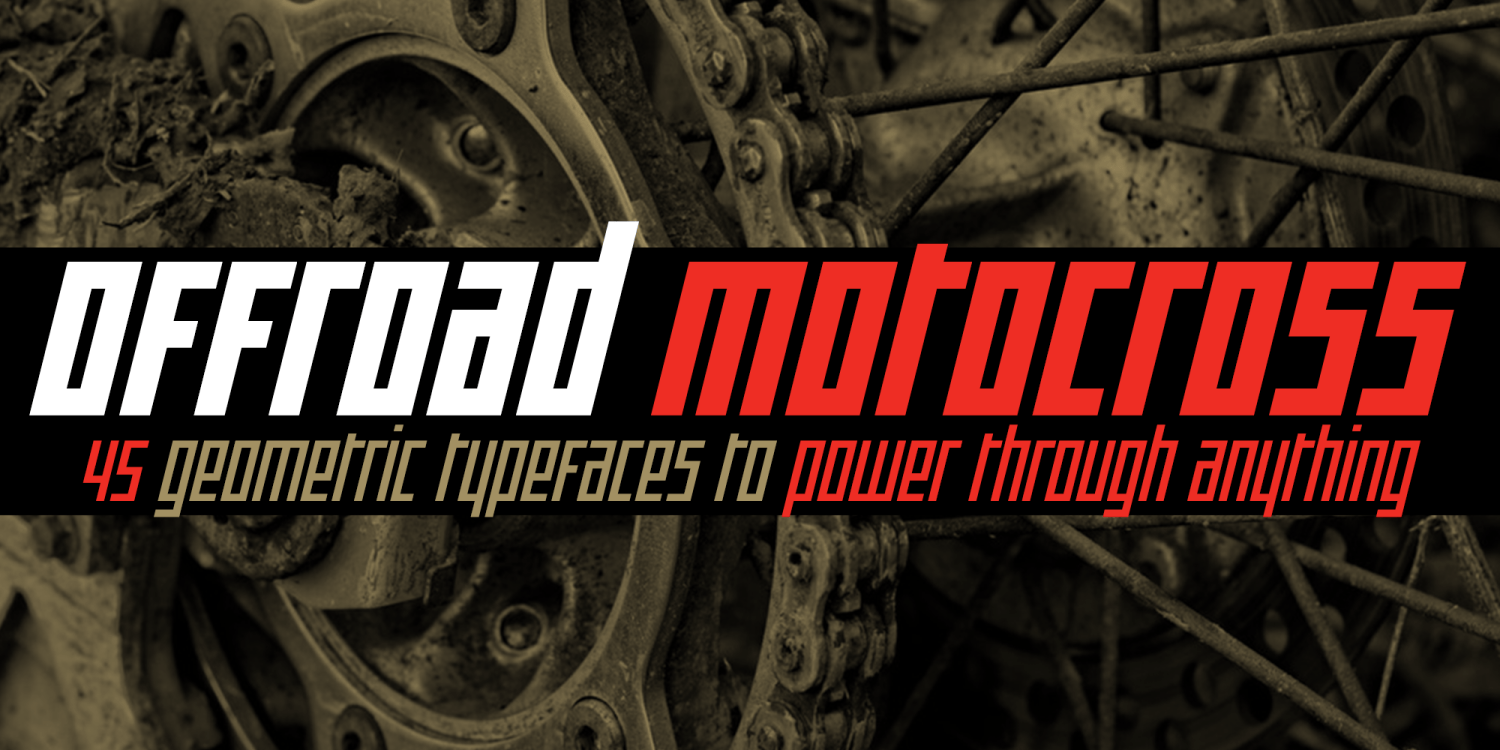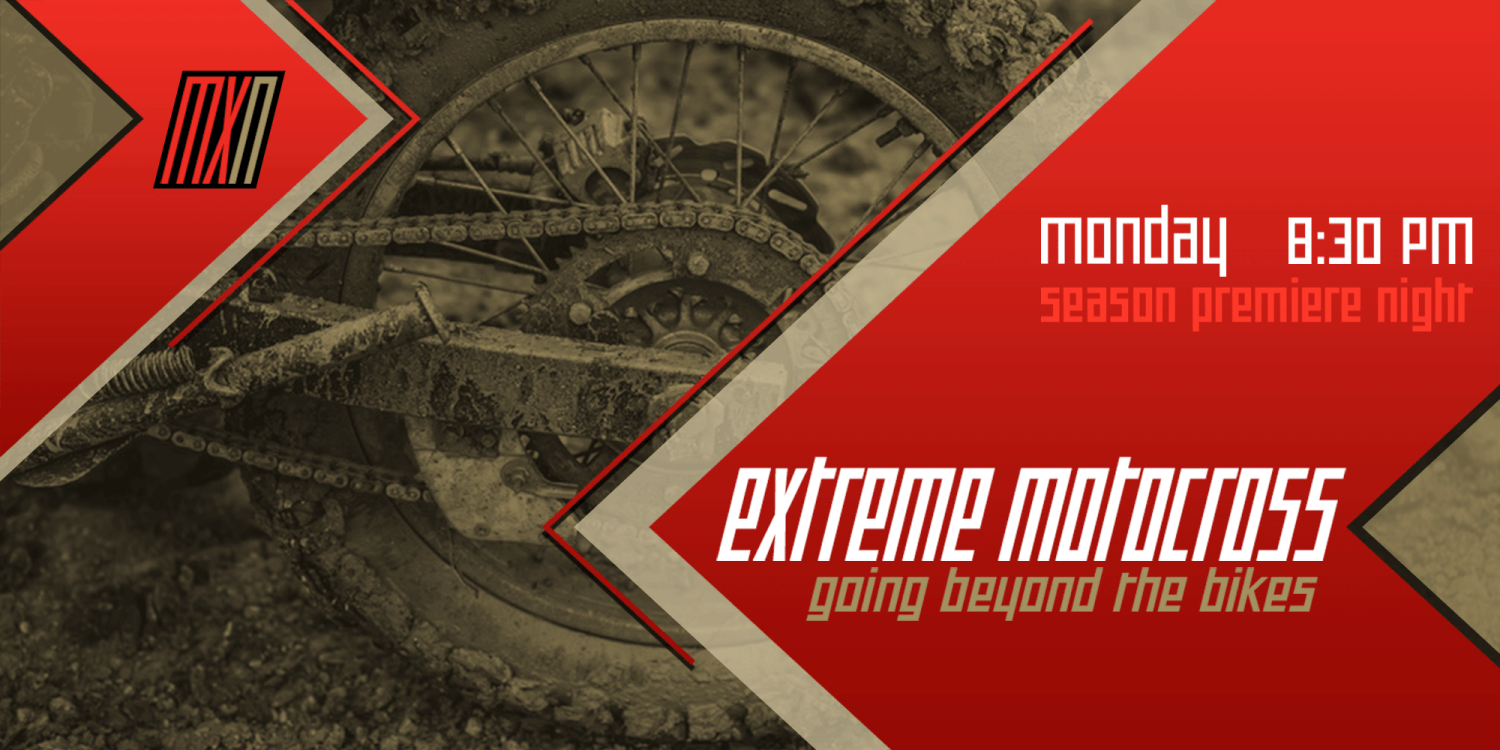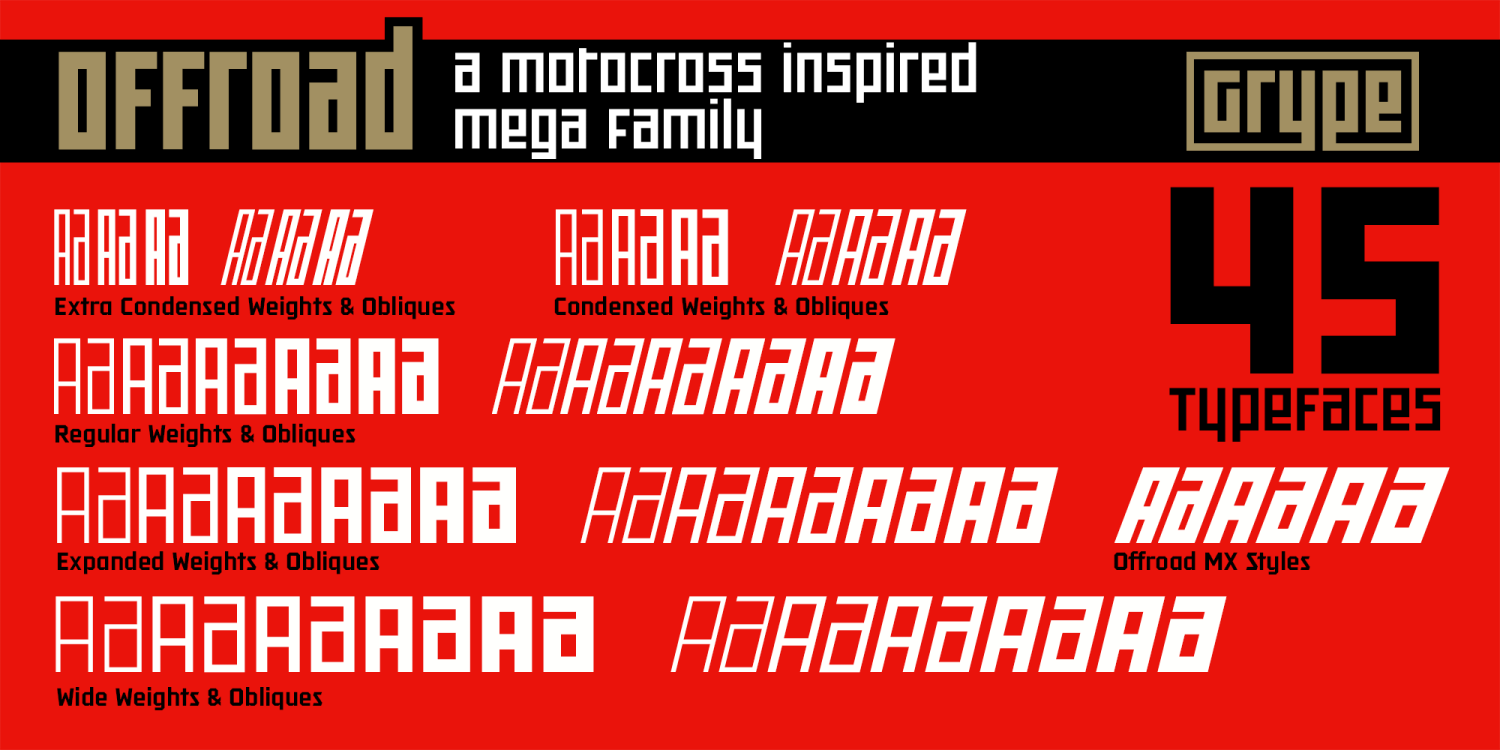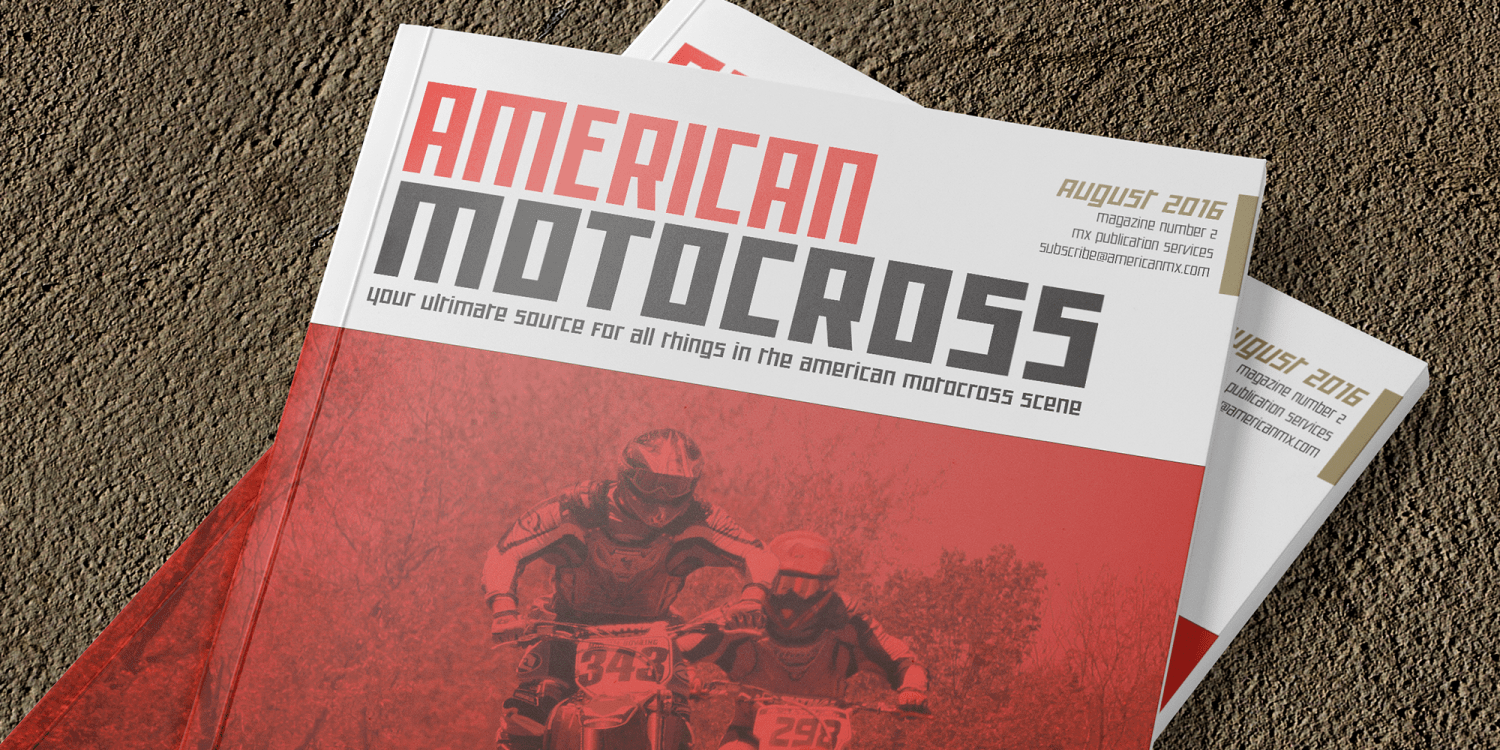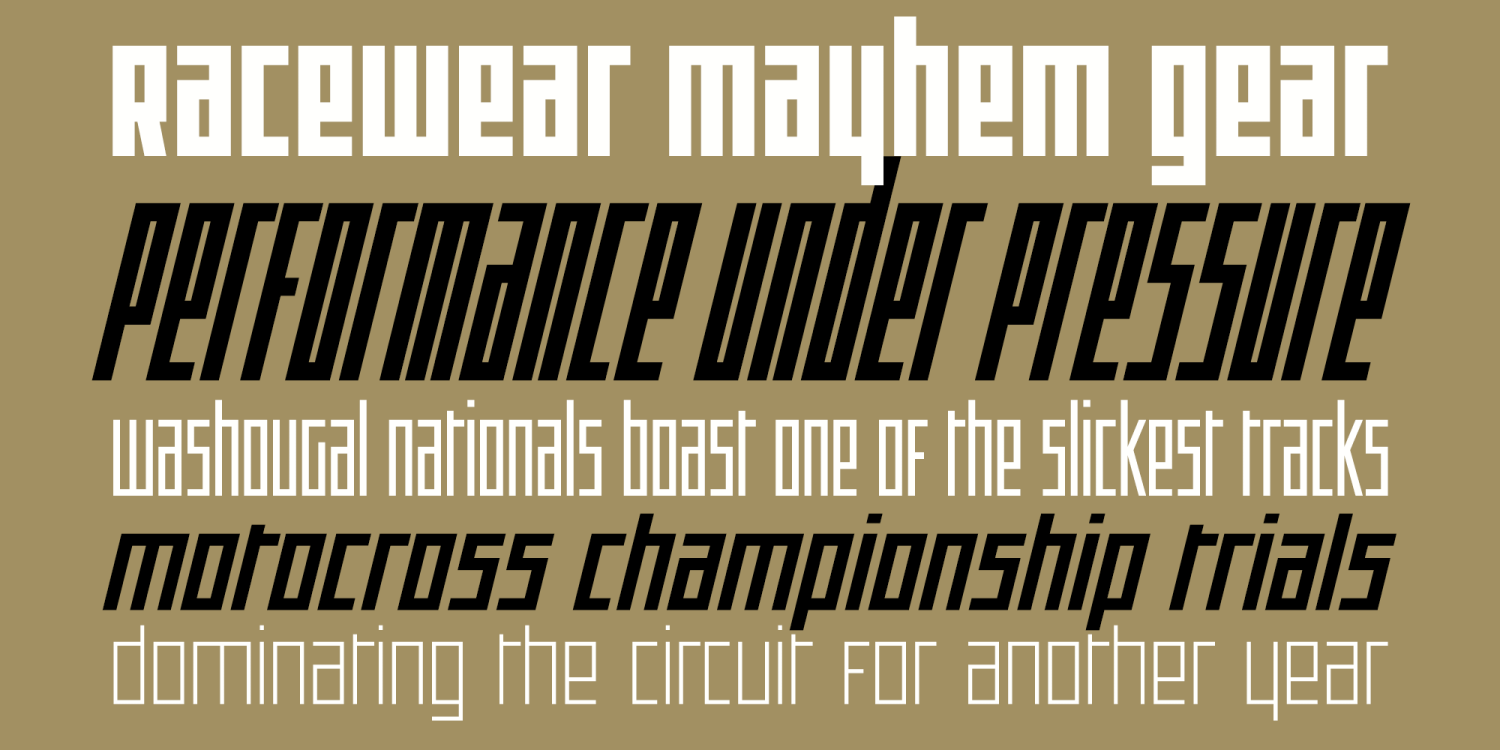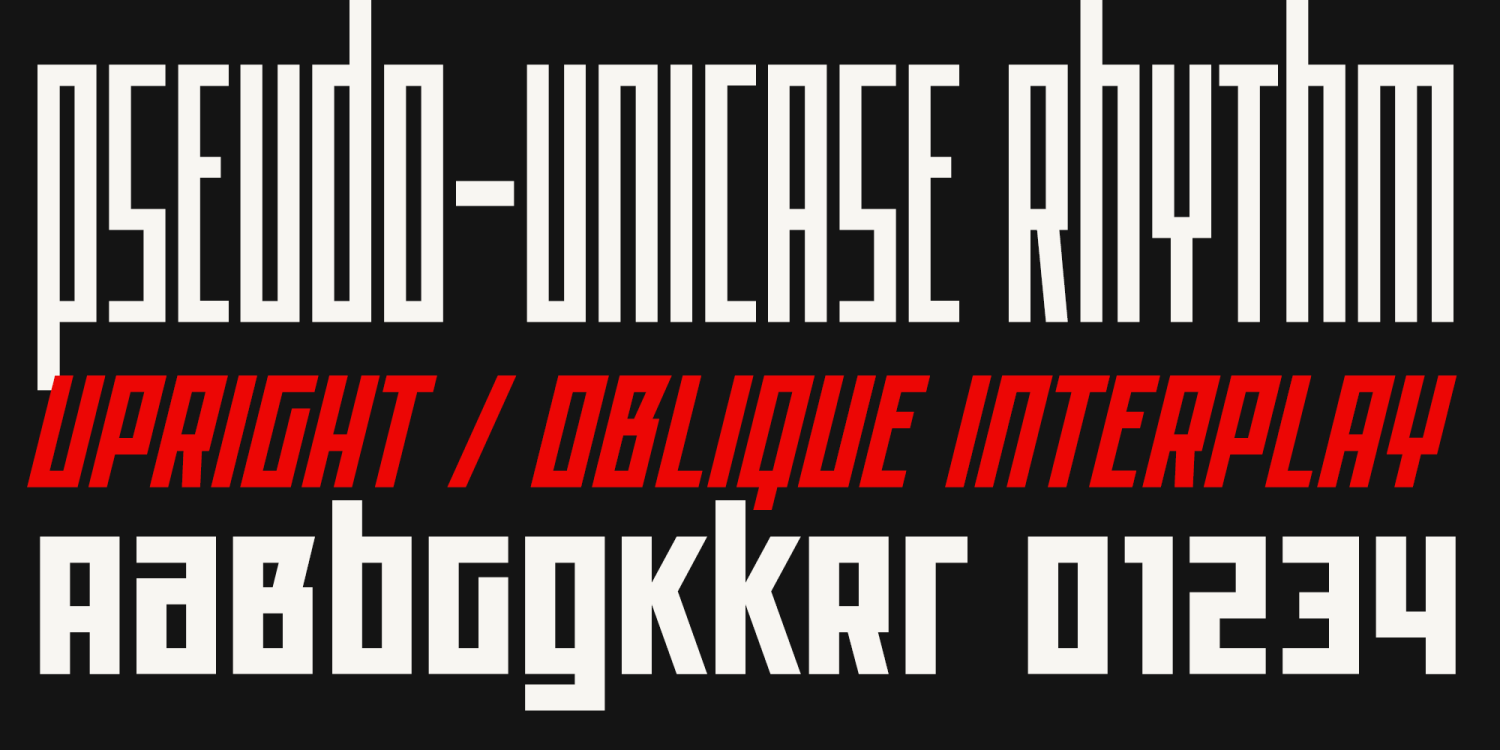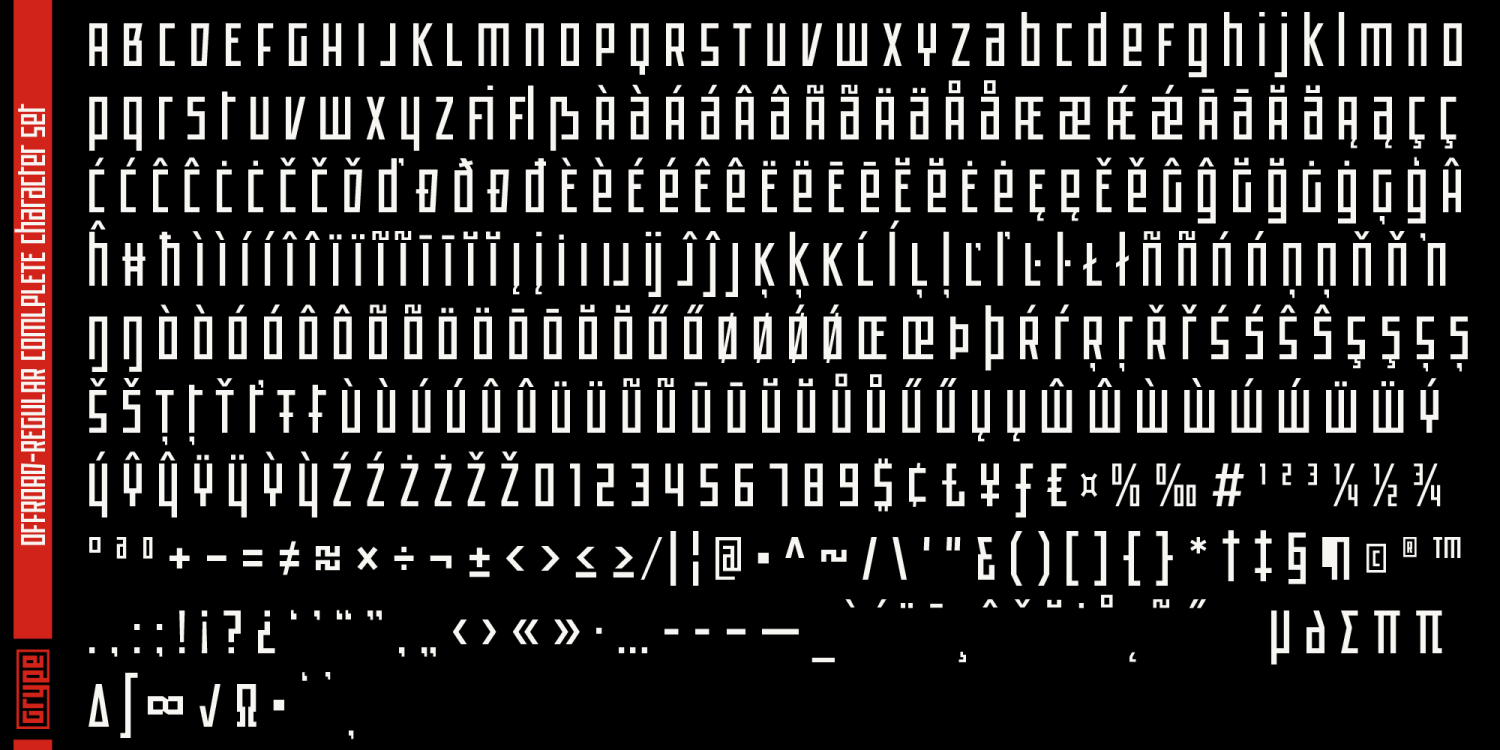
Offroad
Font Family by Grype
Offroad is a high-performance geometric display sans inspired by motocross graphics, racing typography, and industrial sport branding. Built around a distinctive pseudo-unicase structure, the family expands a bold motorsport lettering style into a massive multi-width system designed for aggressive headlines and high-impact design. The design traces its inspiration to motocross logotype traditions and transforms that influence into a versatile typographic system. Offroad combines sharp geometric construction with a rugged racing personality, giving designers a powerful toolkit for everything from motorsports branding to techno posters and industrial graphics. The Offroad Collection contains 45 fonts organized into multiple width systems ranging from extra condensed to wide, each paired with five weights and oblique styles. This structure allows designers to move seamlessly from tight vertical headlines to expansive display layouts while maintaining a consistent visual voice. Each style contains an extensive multilingual character set with hundreds of glyphs supporting Latin-based languages, along with punctuation, numerals. The pseudo-unicase approach gives the typeface a distinctive rhythm that feels both mechanical and futuristic. With its high-energy geometry and broad range of styles, Offroad is ideal for motorsports graphics, racing branding, sportswear design, techno posters, esports identities, automotive magazines, and modern industrial typography.